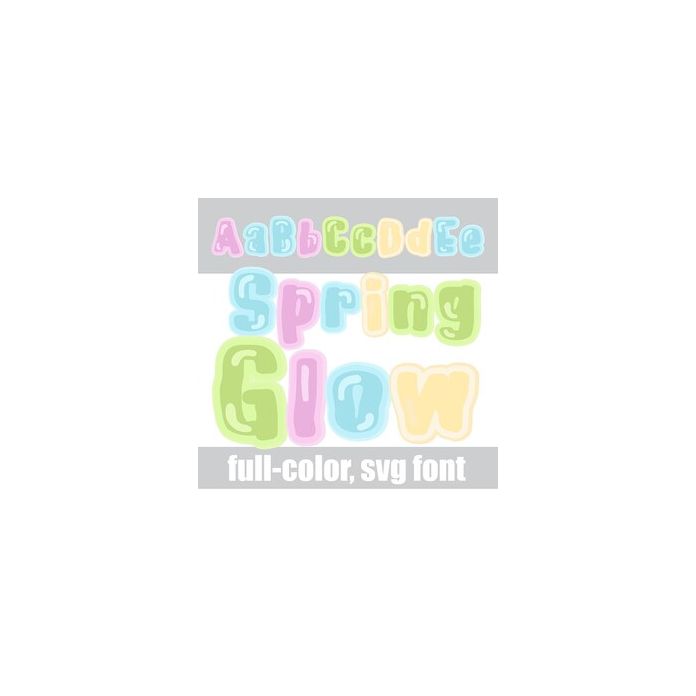
This full-color font features glowing pastel lettering. There is an alt case w/ additional colors you can access through your system or Silhouette's glyph map.